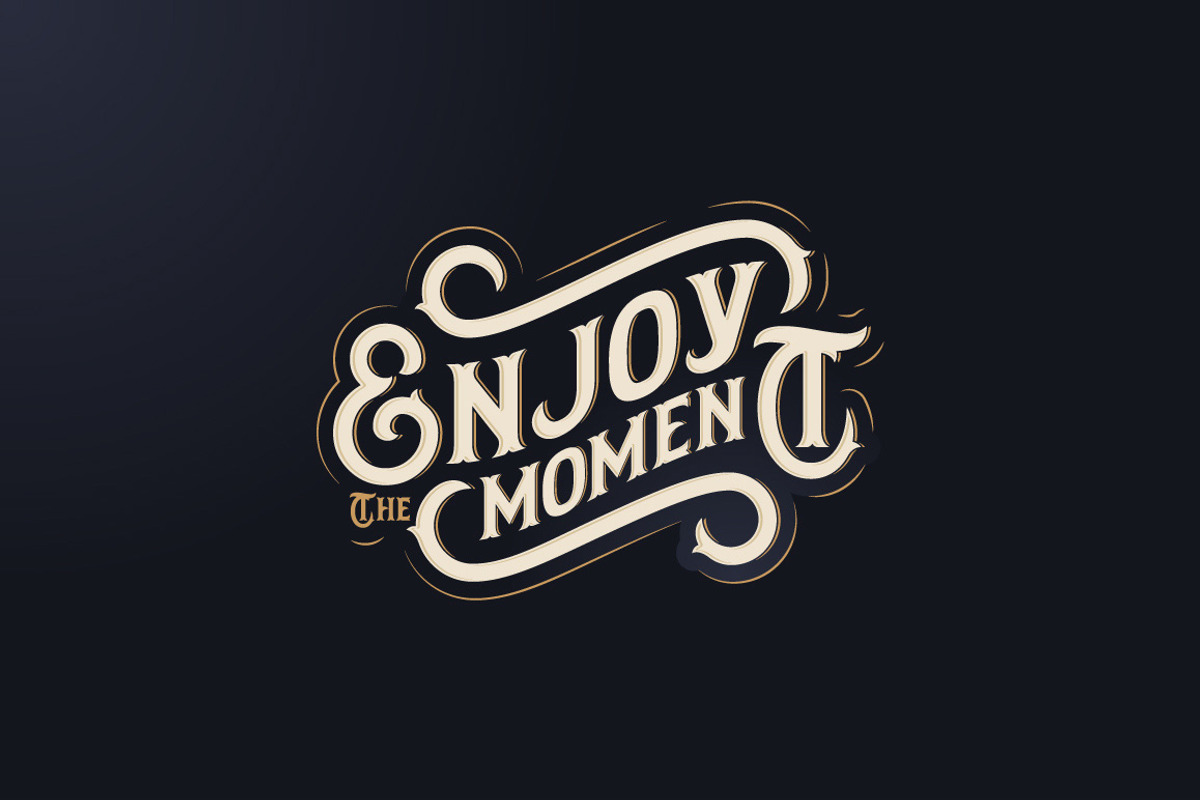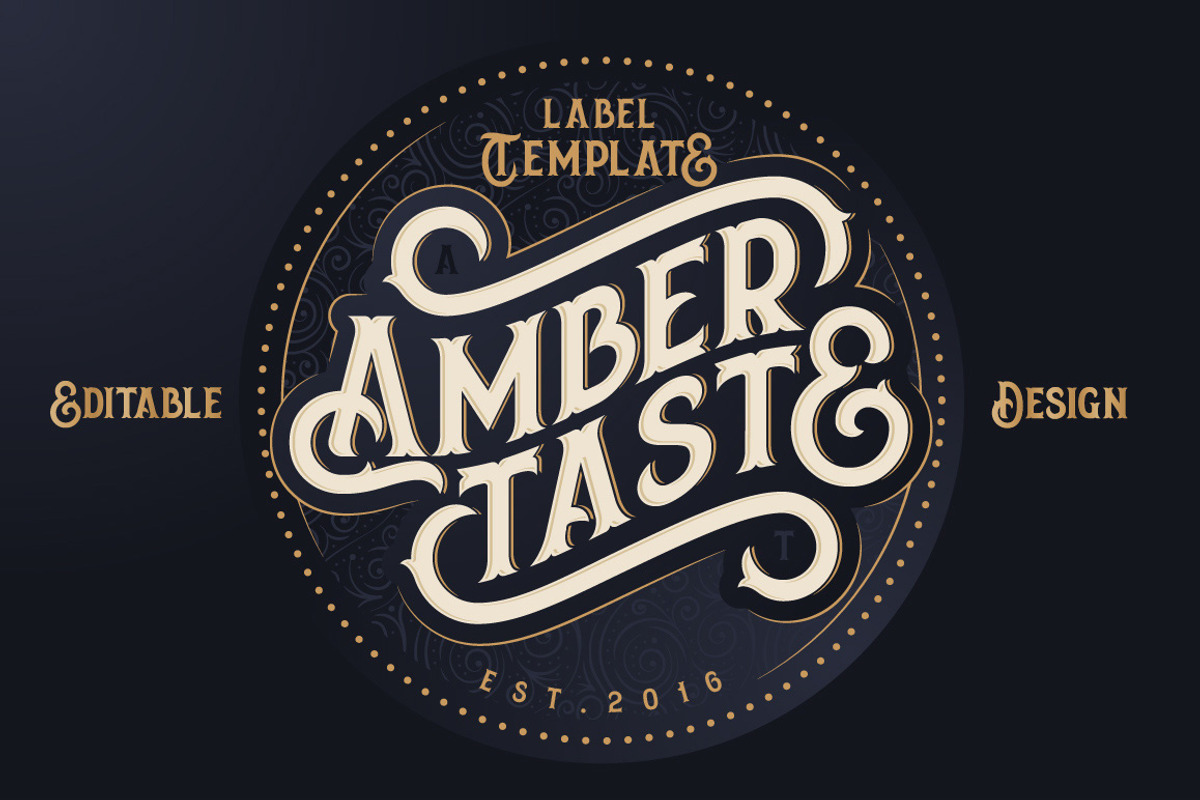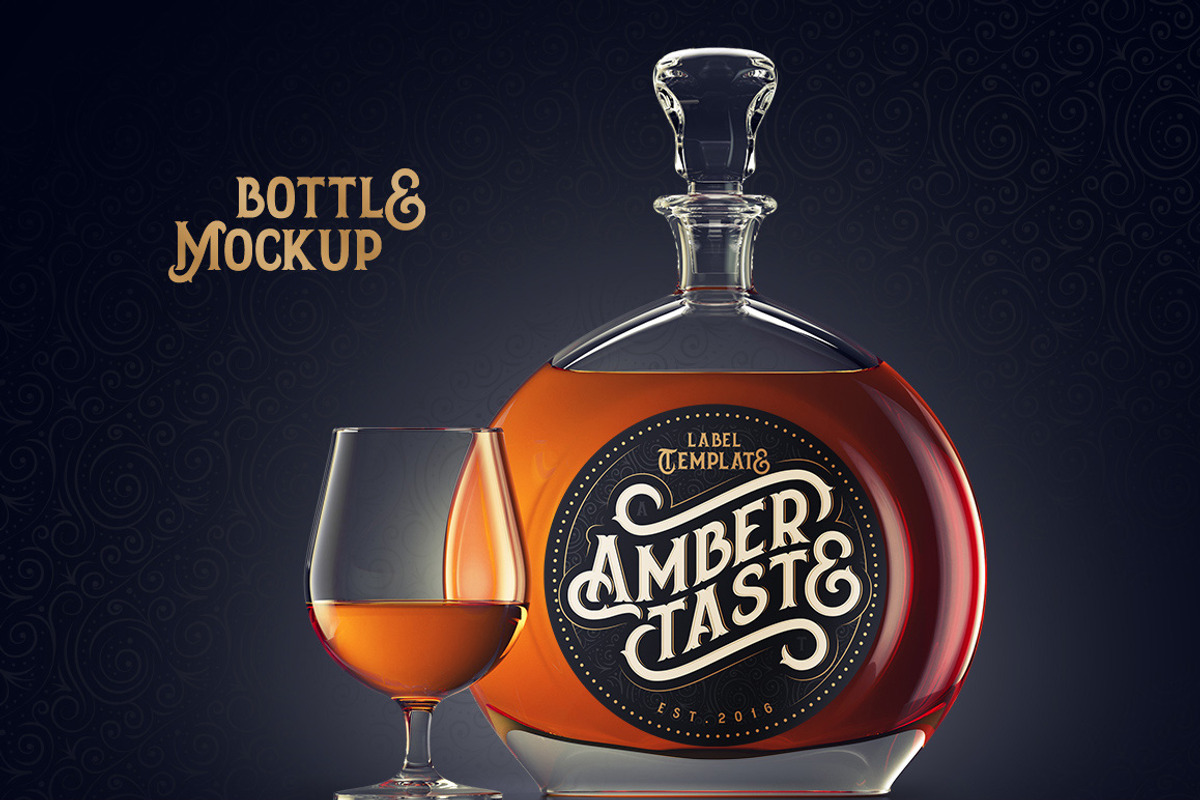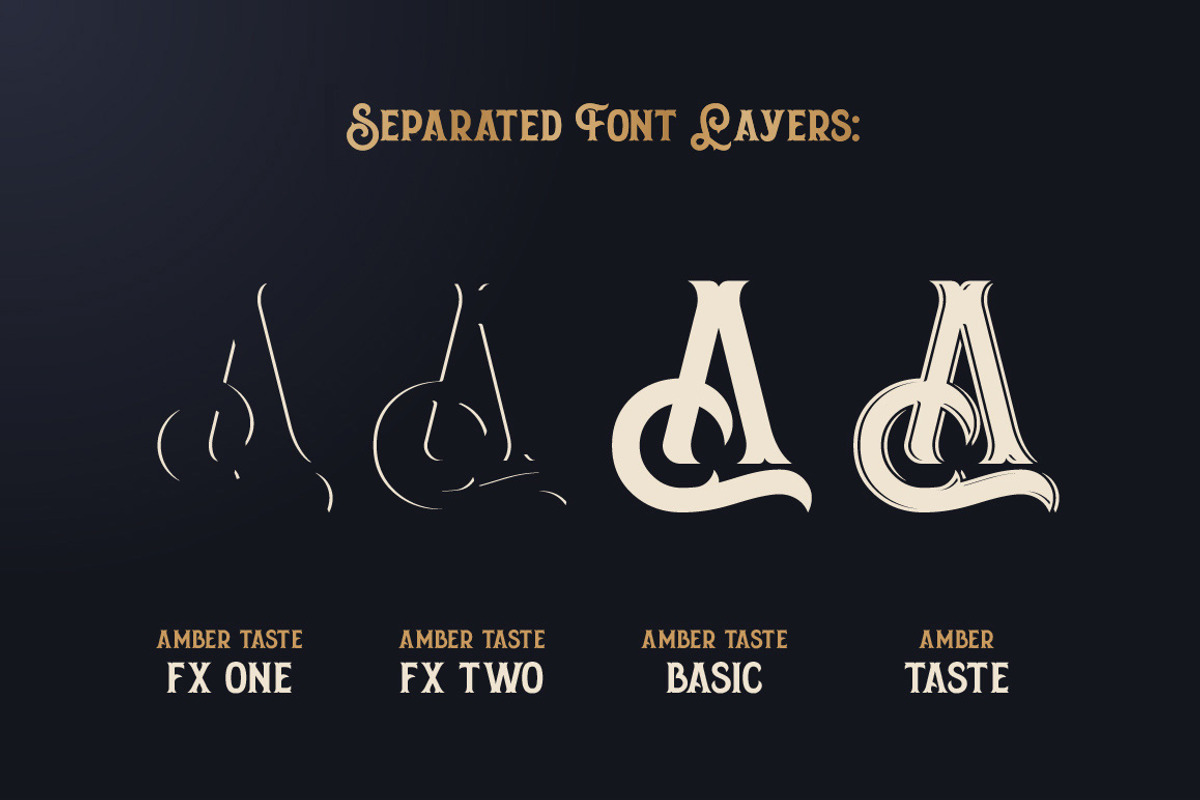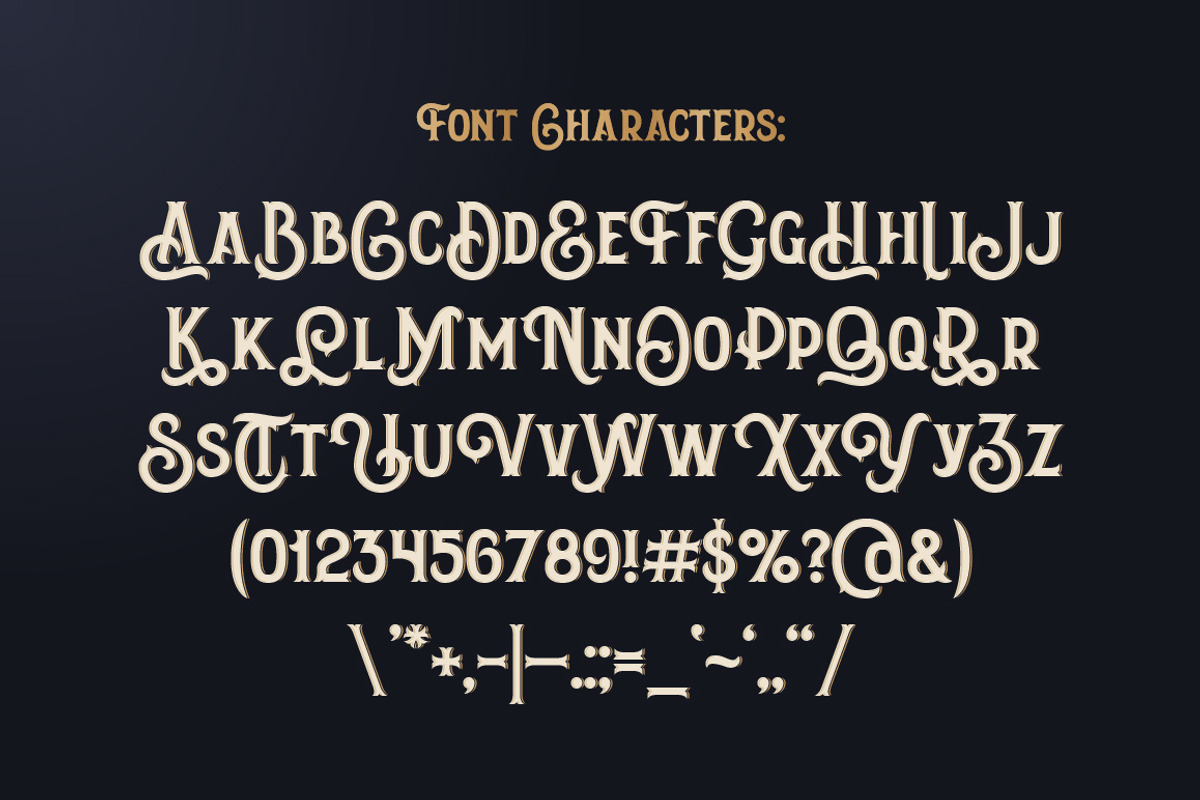
Amber Taste Font, Label, Mockup!
Amber Taste Font, Label, Mockup! by Gleb Guralnyk is a font selected for branding, posters, packaging, typography.
- It includes vintage decorative font, vector label template and high quality 3d render of a brandy bottle mockup.
- Amber Taste Regular
- Amber Taste Basic Regular
- Amber Taste FX One Regular
- Amber Taste FX Two Regular
Amber Taste Font, Label, Mockup! by Gleb Guralnyk fits naturally into Branding, posters, packaging, typography.